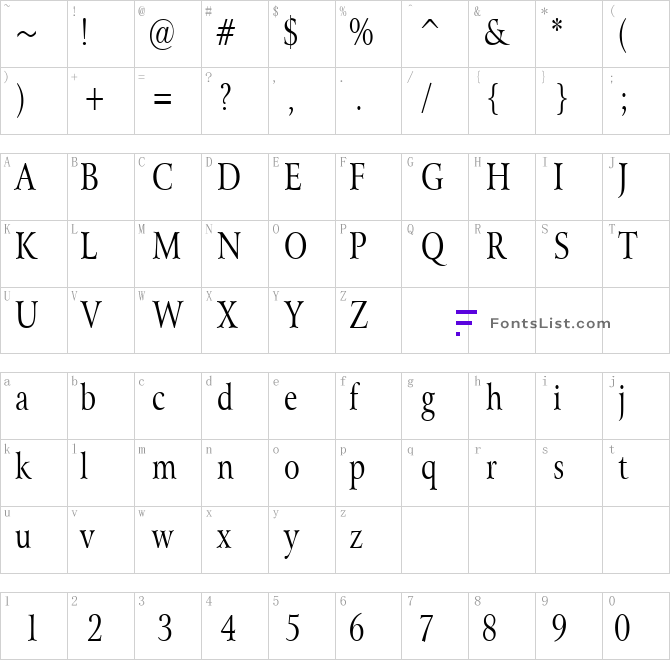
- Font Name:Array-Condensed
Array-Condensed-Normal.ttf is a very beautiful artistic font, Array-Condensed-Normal.ttf is widely used in the design and printing of various books and pictures,Array-Condensed-Normal.ttf has a strong visual impact,Array-Condensed-Normal.ttf is a commonly used font in newspapers, magazines and books, and is used in posters, e-commerce Poster design, store design, logo design, font design and other fields.Array-Condensed-Normal.